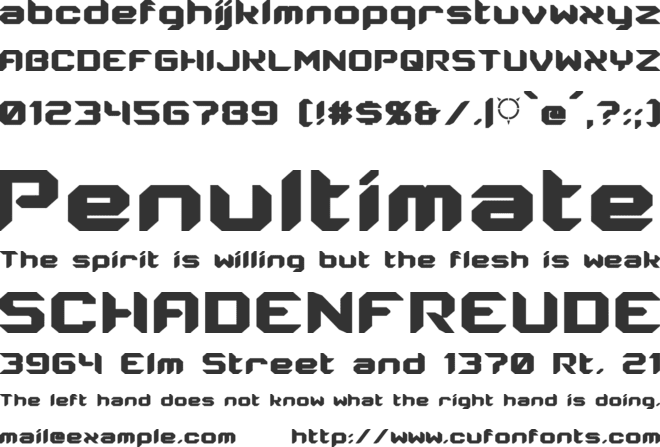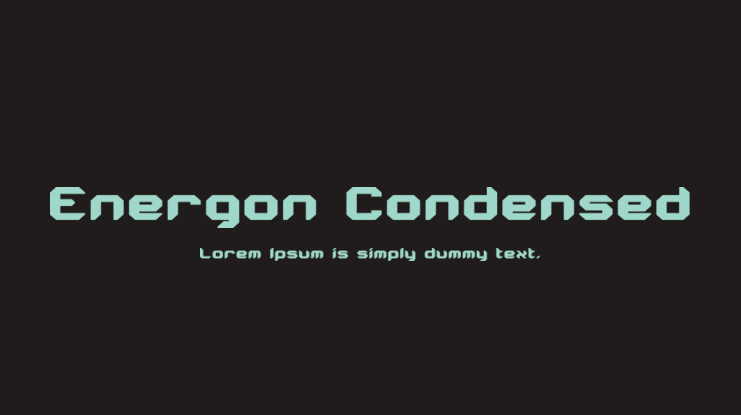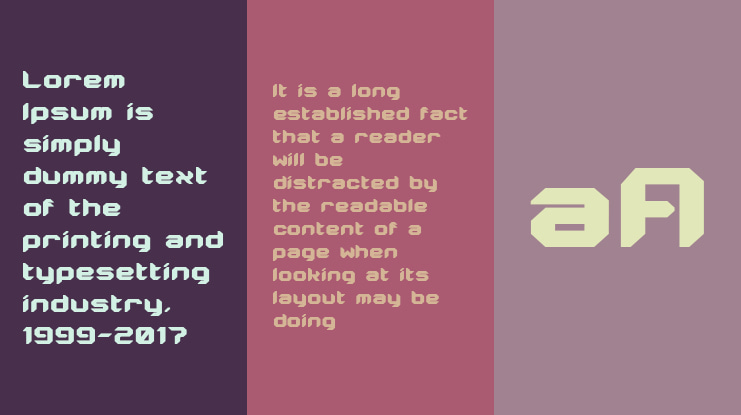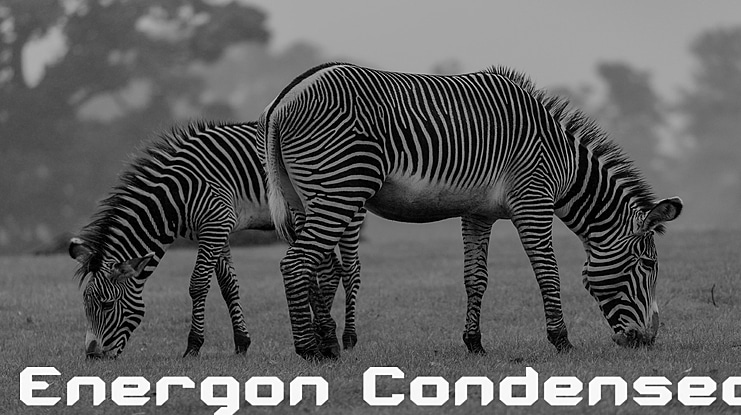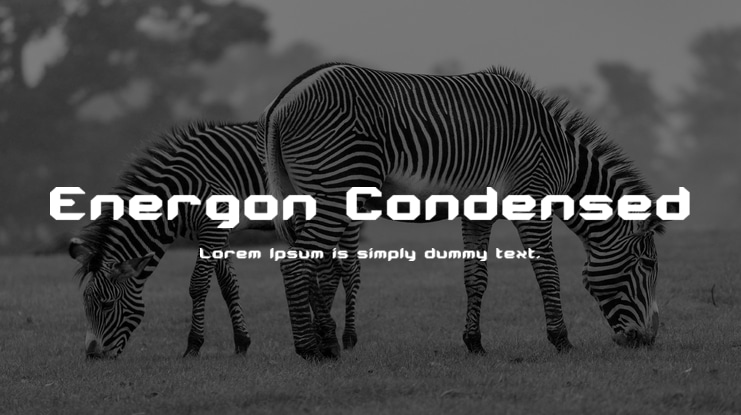
Energon Condensed Font Family
Neale Davidson
A heavy LCD-like font based on the logo of Hasbro's "Transformers: Energon" toyline from 2004-2005. Includes full alphabet, numerics, punctuation, Euro, and accent glpyhs. Regular and Italic versions included.